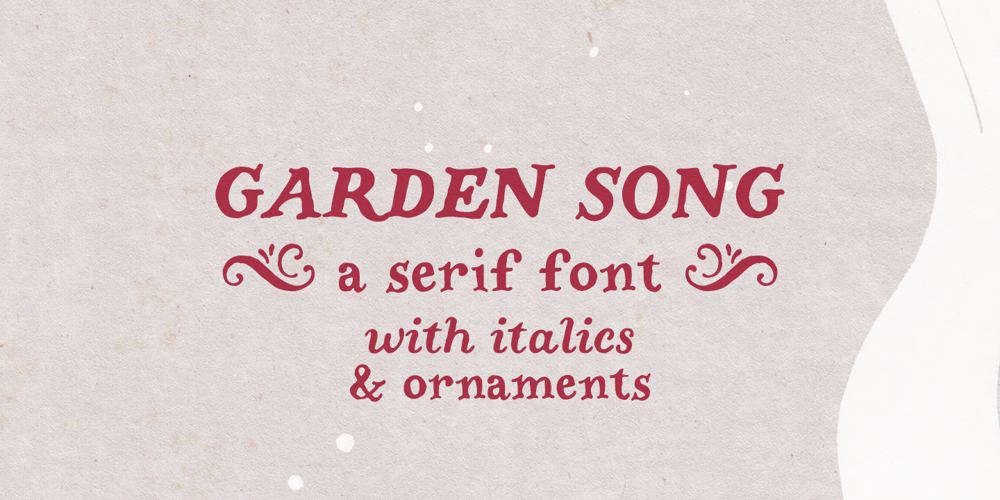
Garden Song Font Family was designed by Ana Parracho and published by Ana’s Fonts. Garden Song contains 3 styles and family package options. Garden Song is a quirky handmade serif font family with ornaments. Garden Song includes a serif font, with handmade italics and ornaments. Use Garden Song in designs such as postcards and notes, posters, logotypes, social media posts, branding and packaging.Garden Song includes: Garden Song: a serif font with a cute hand lettering feel and swashes for the caps, with matching Garden Song Italic, and Garden Song Ornaments: a set of 26 ornaments